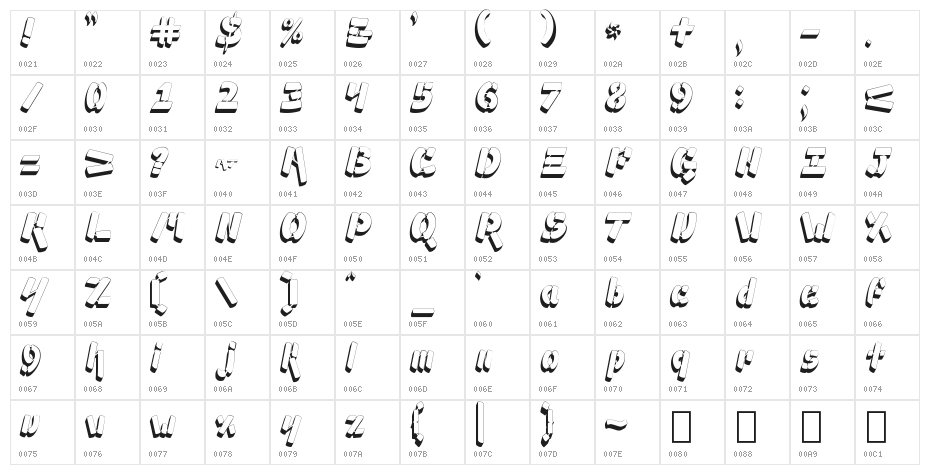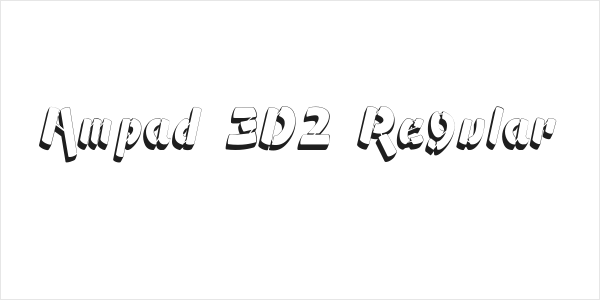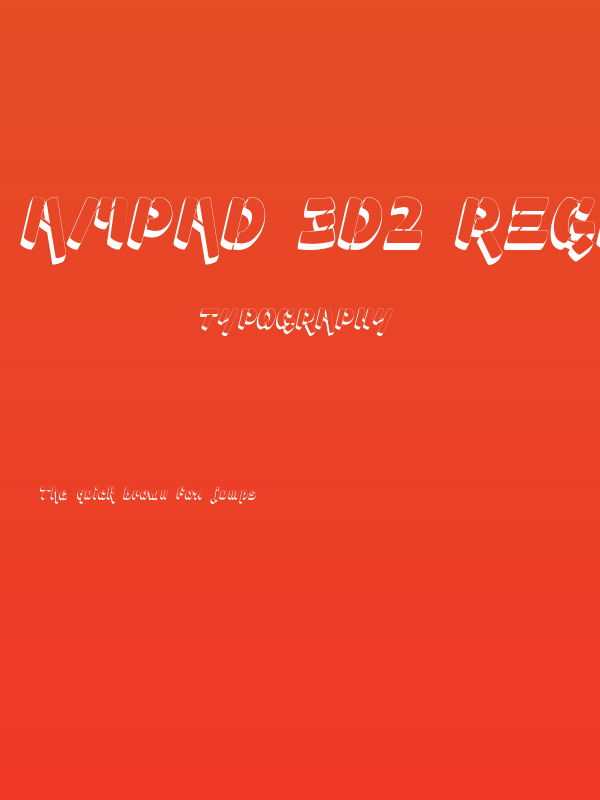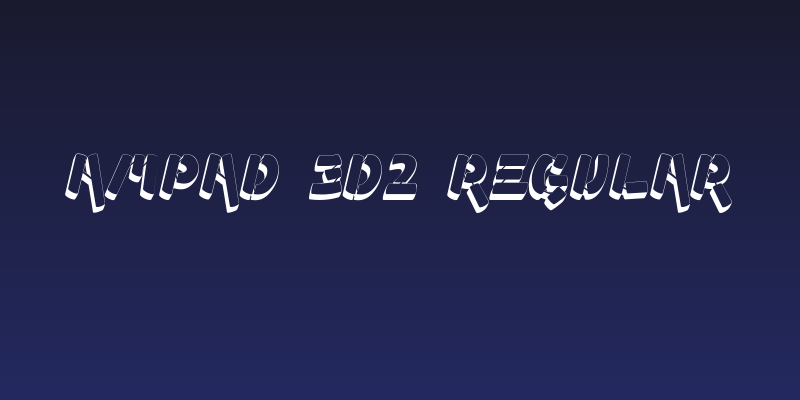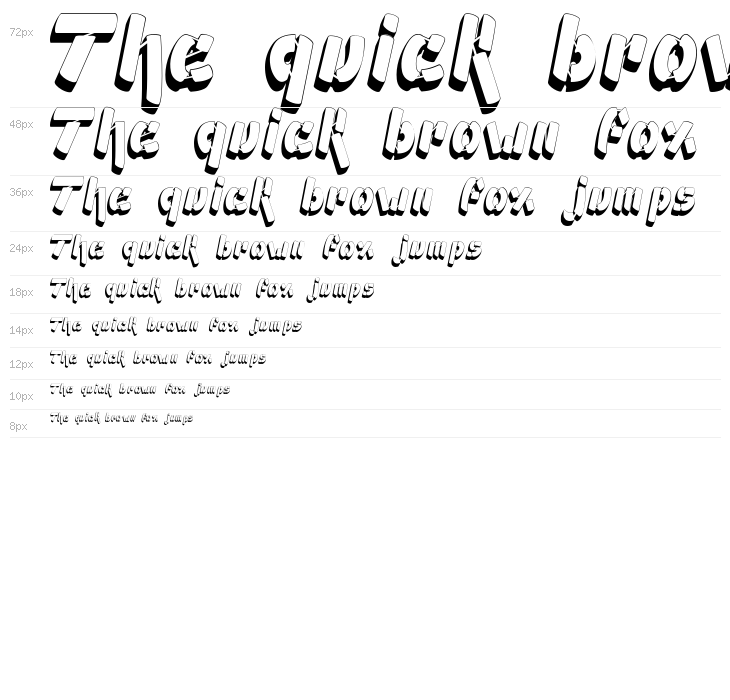
Ampad 3D2 Regular Font
Ampad 3D2 Regular Description
This font features a bold, three-dimensional appearance with a distinct shadow effect that gives each character a sense of depth and dynamism. The letters are capitalized and have a playful, cartoonish style, making them stand out with a strong visual impact. The strokes are thick and consistent, contributing to a robust and sturdy look. The characters are slightly slanted, adding a sense of movement and energy. The font includes a full set of uppercase and lowercase letters, numbers, and a variety of special characters, all maintaining the same 3D effect. This style is particularly eye-catching and suitable for designs that require a bold and engaging visual presence.
| Proposed Projects | Ideal for comic book titles, children's book covers, playful branding, and eye-catching posters. |